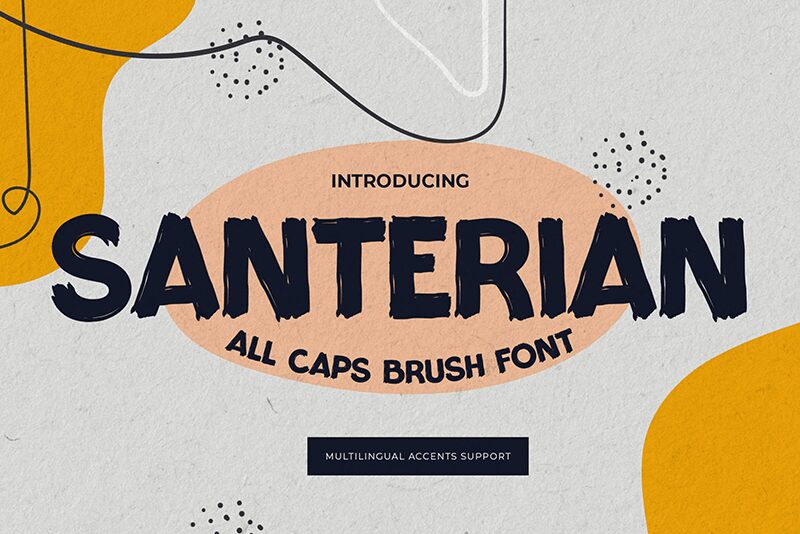
Santerian
Santerian emerges as a distinctively bold brush font crafted by the visionary Gassstype. With its all-caps modern style, it dances across the page with dramatic movement that captures the essence of casual rapidity. Tailored for creative mavens who seek authenticity and uniqueness in their work, Santerian offers a textured touch that brings each design to life with unparalleled natural charm.
Ideal for an array of projects-from eye-catching labels and modern posters to compelling branding and packaging-this font thrives where a statement is demanded. Its suitability extends to personalizing greeting cards, enhancing websites, or adding an artistic overlay to photography; Santerian's versatility knows no bounds. The font's robust weight ensures standout visibility while its brush strokes maintain a raw edge, perfect for those who dare to make their mark with flair and originality.